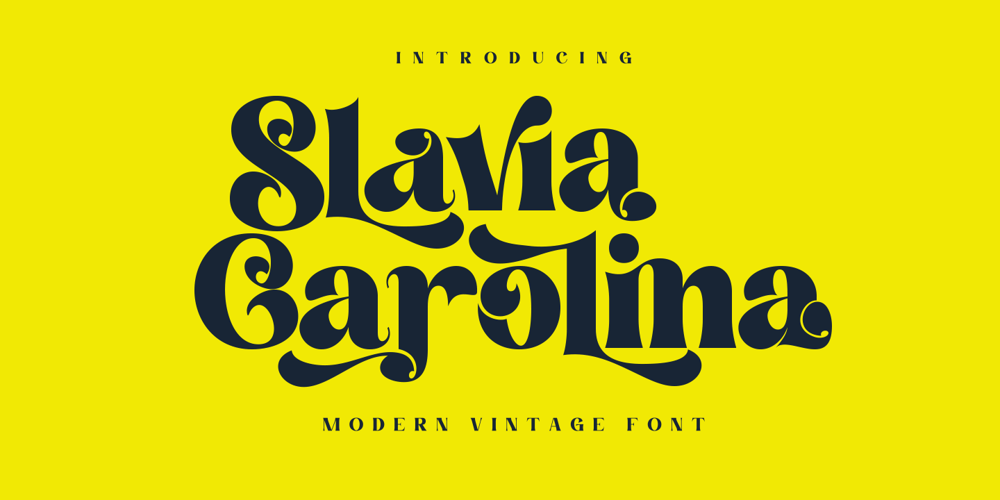
Slavia Carolina Font Family was designed by Candi Erwanto and published by MysticalType. Slavia Carolina contains 1 styles and family package options. Slavia Carolina is a vintage font with a modern touch that is suitable for logo purposes, design layout, cover, Headline, and more.Slavia Carolina has also included a full set of:Uppercase and lowercase lettersAutomatic ligaturesMultilingual charactersNumeralsPunctuation